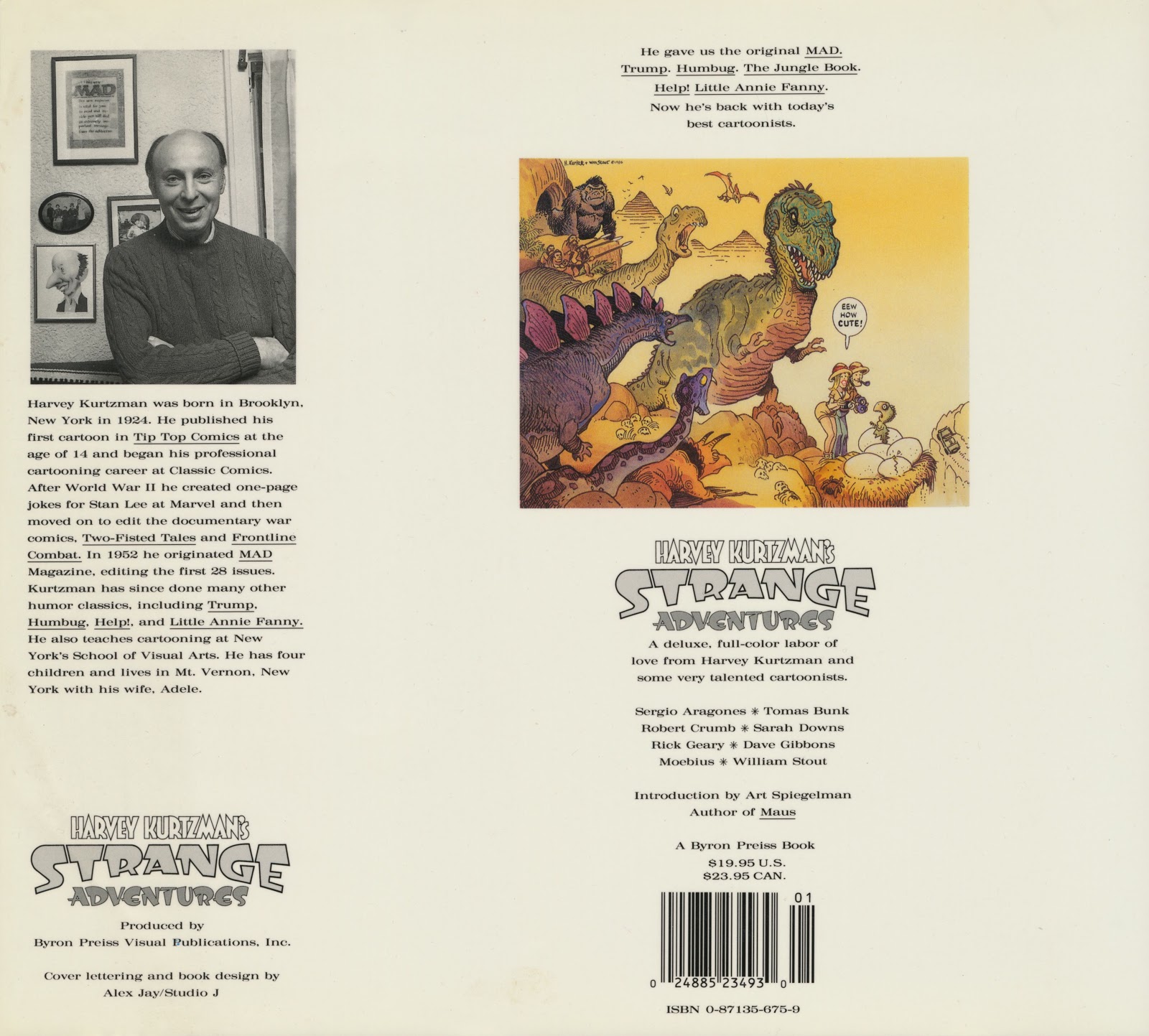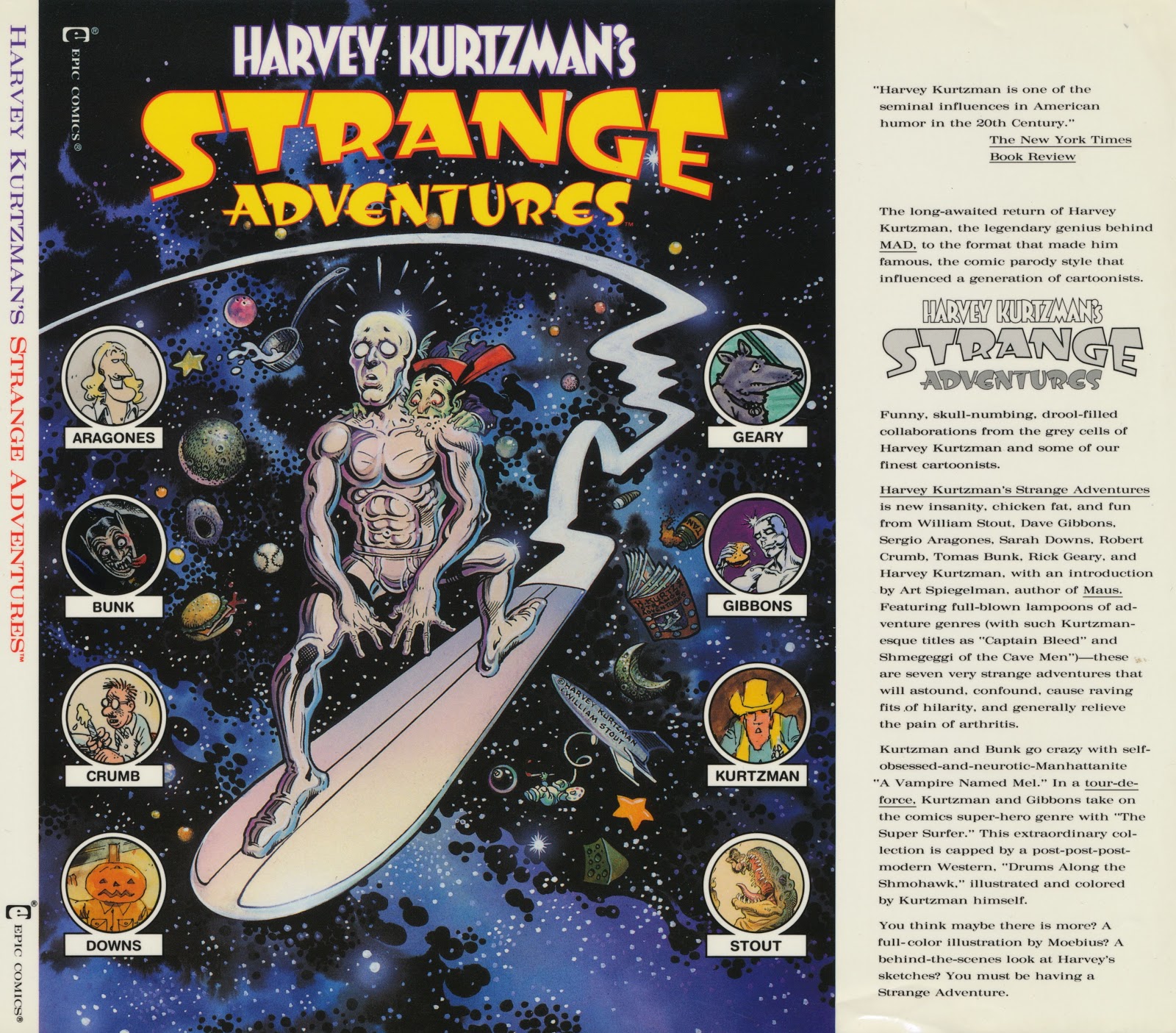
Under Cover: Harvey Kurtzman’s Strange Adventures
In March 1990 I received a telephone call from Byron Preiss who described the book he was producing with Harvey Kurtzman. I jotted down the title, names of the artists and what he wanted for the cover design. William Stout’s art would be in a circle with the title above it. Above the title would be a strip with characters from the stories.
Tracing paper with thumbnail sketches of the cover design and title lettering.
Comp lettering of the title.
Photostat of Stout’s artwork with comp lettering around it.
The various elements were assembled into the cover design.
The design was nixed and a new direction was forthcoming.
Stout’s illustration would be used on the back of the dust jacket.
Byron called and referred to the EC Comics covers with the portraits of the characters in semi-circles and their names below. The Strange Adventures cover would feature eight artists. He added that Stout was sending in a illustration of the Silver Surfer for the cover.
Sketches of the new cover concept and title lettering designs.
Getting close to the final form of “Adventures”.
Here is a good example of the title lettering not working as a whole.
Alternate versions did not work either.
Back at the drawing board, I decided to get away from a cartoony
treatment of Harvey’s name, and try a different style for “Strange.”
In this sketch I was refining individual letters. The “M”
was a reference, of sorts, to the MAD logo on the comic book.
The “M” is evolving, and the “s” no longer touches the “N”.
I found the “Strange” letterforms I was looking for.
Tight comp lettering of “Harvey Kurtzman’s”.
“Strange” on an arc with “Adventures’ below it.
Tight comp lettering of “Strange” with some
of the white gouche touch-ups chipped off.
Photocopy of the revised title lettering with Stout’s new illustration.
Each line of the title was drawn separately.
The comps were enlarged on a photocopier.
Each photocopy was positioned on a light box then a piece of vellum placed over it.
The inking was done with Rapidograph pens and corrections with white gouche.
Dust jacket front cover, flap and spine.
Dust jacket back cover and flap.
Harvey and Byron were open to suggestions for the book’s endpaper.
I had the book and flyer for Glenn Bray’s, The Illustrated Harvey
Kurtzman Indexso I suggested using the cover art. And they agreed.